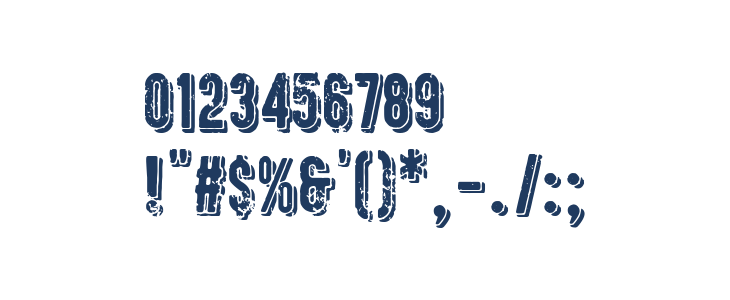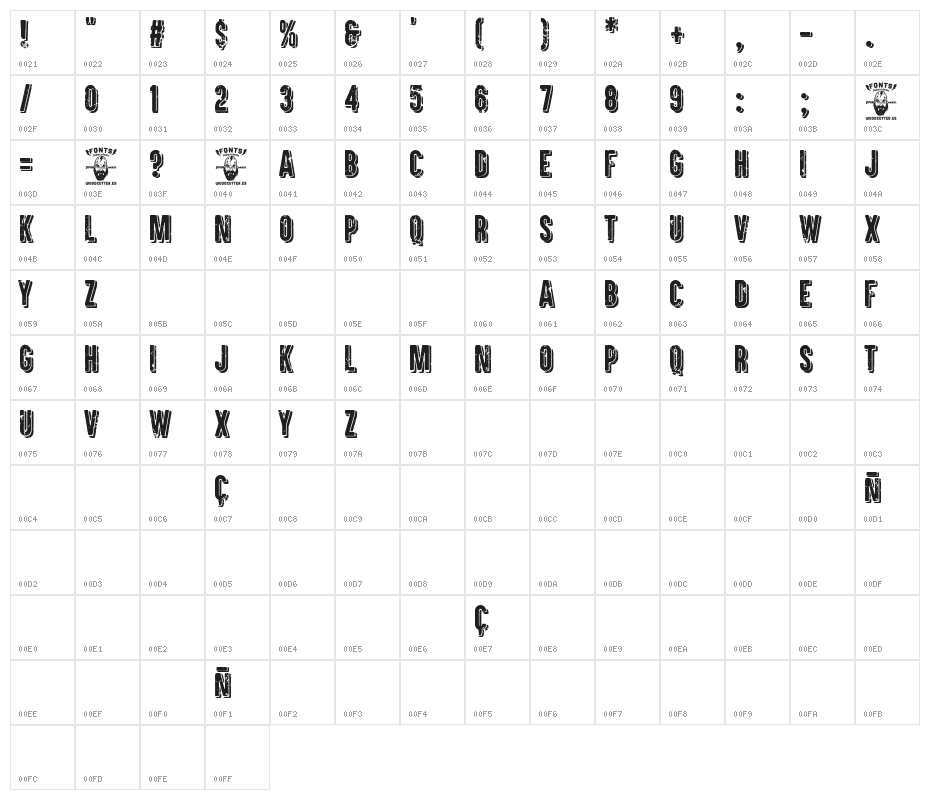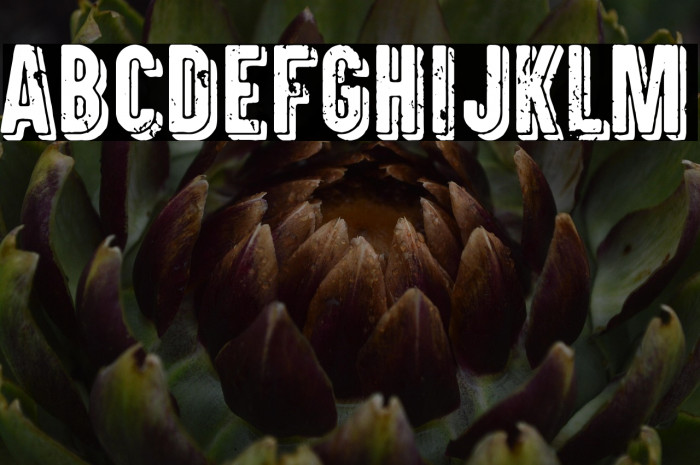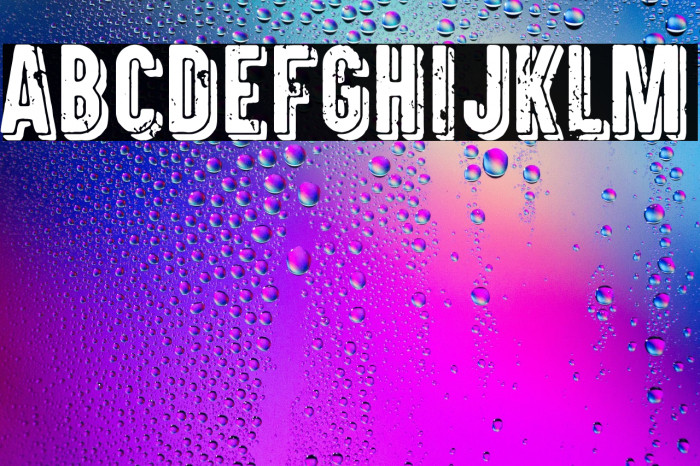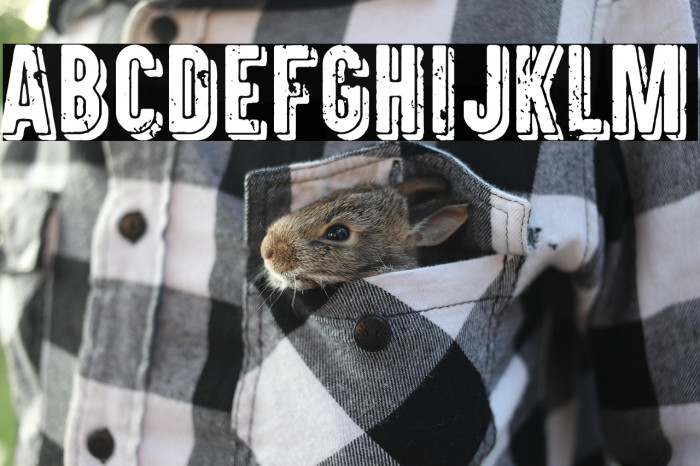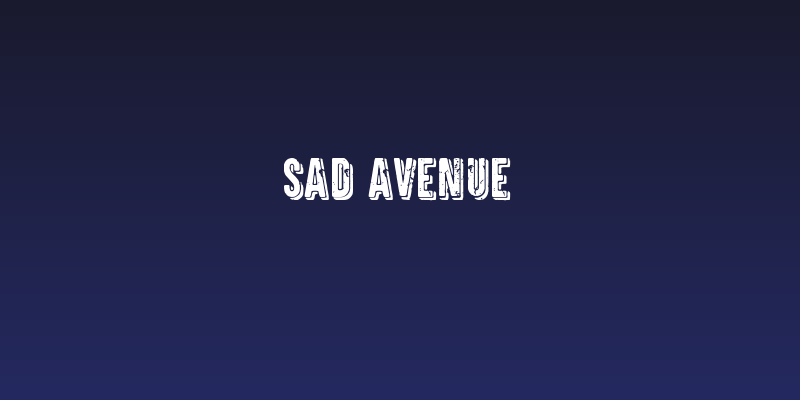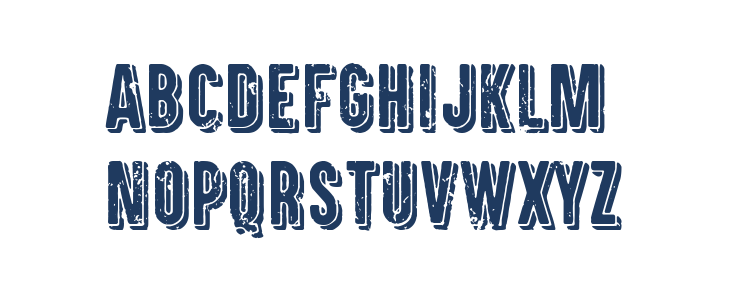
Sad Avenue Font
Sad Avenue Description
This font features a bold, distressed style that gives it a rugged, vintage appearance. The characters are heavily textured, with a worn-out look that suggests age and history. The uppercase letters are prominent and commanding, while the numbers and special characters maintain the same distressed aesthetic. This font is ideal for projects that require a strong, impactful presence with a touch of nostalgia or grunge. The design is consistent across all characters, providing a cohesive look that can enhance posters, album covers, or any creative work that seeks to evoke a sense of the past.
| Proposed Projects | Ideal for posters, album covers, vintage-themed designs, and branding that requires a strong, nostalgic impact. |